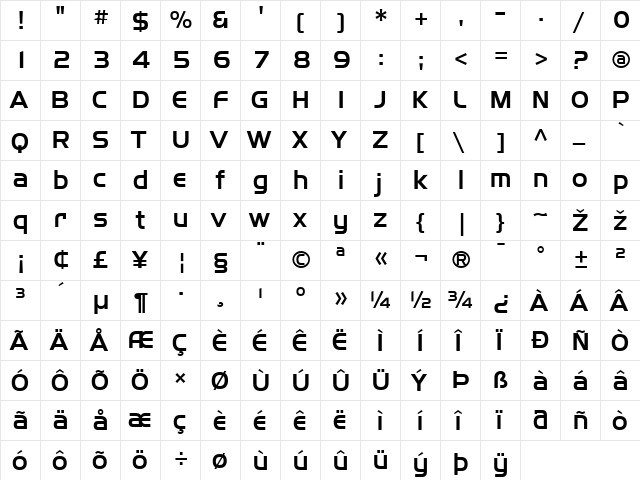
SF Fourche Regular
| Foundry | ShyFoundry |
| Designer | Derek Vogelpohl |
Design Context for SF Fourche Typeface
SF Fourche offers clean, dependable letterforms without strong stylistic allegiance, making it a practical choice for designers who need flexibility.
Pro Tip: Pair SF Fourche with a font of contrasting weight or personality to build a more expressive typographic hierarchy.